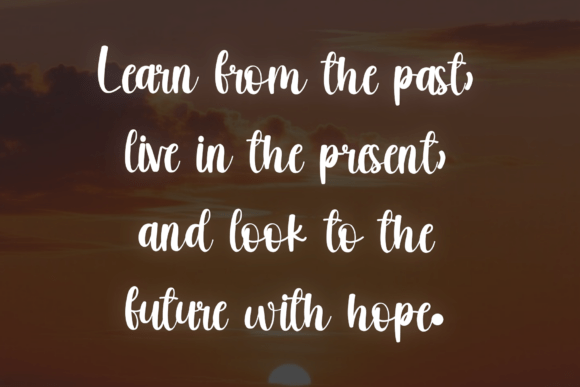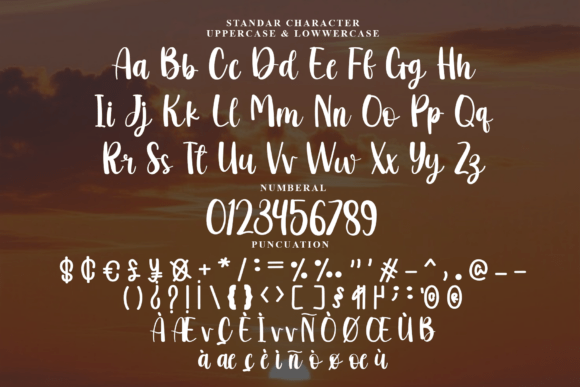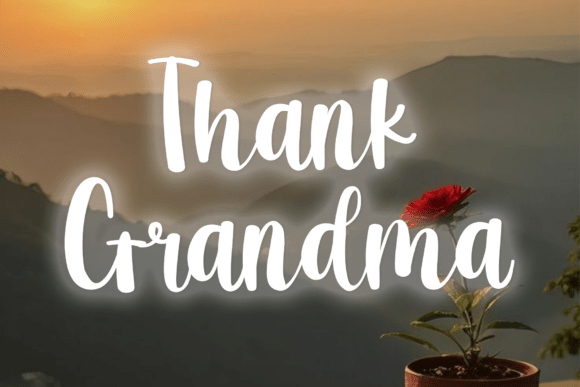
Discover the Daily Calm Font: Elevate Your Design with Elegance and Clarity
In the realm of modern typography, the Daily Calm font emerges as a unique and professional addition to the handwritten collection. This font is meticulously designed to evoke a sense of clarity and crisp elegance, making it an excellent choice for designers and crafters seeking to infuse their projects with a refined aesthetic. The Daily Calm font features tall, thin strokes with a subtle, airy slant, offering a fresh and sophisticated look that feels as invigorating as a mountain breeze.
The Essence of Daily Calm: Clean, Approachable, and Elegant
The Daily Calm font is characterized by its clean and approachable style, which makes it exceptionally versatile for various design applications. Its tall, thin strokes contribute to a sense of elegance and sophistication, while the subtle slant adds a dynamic and airy feel. This combination results in a font that is not only visually appealing but also highly legible, making it perfect for a wide range of projects.
Ideal Applications for Daily Calm Font
The unique qualities of the Daily Calm font make it particularly well-suited for specific design areas, including:
- Travel Photography: The font’s fresh and airy feel complements travel photography by adding a sense of adventure and freedom to the images. It can be used for titles, captions, or quotes, enhancing the overall storytelling aspect of travel projects.
- Branding for Outdoor Gear: For outdoor gear and equipment brands, the Daily Calm font offers a way to communicate a sense of sophistication and professionalism while still conveying a connection to nature and adventure. Its clean lines and elegant appearance can help elevate a brand’s visual identity.
- Sophisticated Web Design: In web design, typography plays a crucial role in user experience. The Daily Calm font, with its refined aesthetic, can be used to create visually appealing headings, titles, and even body text for websites that require a touch of elegance and modernity.
Why Choose Daily Calm for Your Projects?
Choosing the Daily Calm font for your design projects comes with several advantages:
- Versatility: Its clean and elegant design makes it suitable for a wide range of applications, from digital projects like websites and social media graphics to print materials such as brochures and posters.
- Legibility: The font’s tall, thin strokes and subtle slant enhance readability, ensuring that your message is conveyed clearly and effectively.
- Uniqueness: The Daily Calm font stands out in the modern handwritten collection with its unique blend of elegance and freshness, allowing your designs to stand out.
Tips for Using Daily Calm Effectively
To maximize the impact of the Daily Calm font in your designs, consider the following tips:
- Pair with Complementary Fonts: For optimal results, pair Daily Calm with fonts that complement its elegance and airiness. Sans-serif fonts can create a nice contrast, while serif fonts can enhance the sophistication.
- Adjust Line Spacing: Given its tall strokes, adjusting the line spacing can improve readability and ensure that your text blocks are easy to read.
- Experiment with Colors: The Daily Calm font works well with a variety of colors. Experiment with different palettes to find the combination that best suits your design’s mood and purpose.
The Daily Calm font offers a unique blend of elegance, clarity, and freshness, making it an excellent choice for designers and crafters looking to elevate their projects. Whether you’re working on travel photography, outdoor gear branding, or sophisticated web design, this font provides the perfect combination of style and legibility. By incorporating the Daily Calm font into your design toolkit, you can create visually stunning and effective projects that leave a lasting impression.